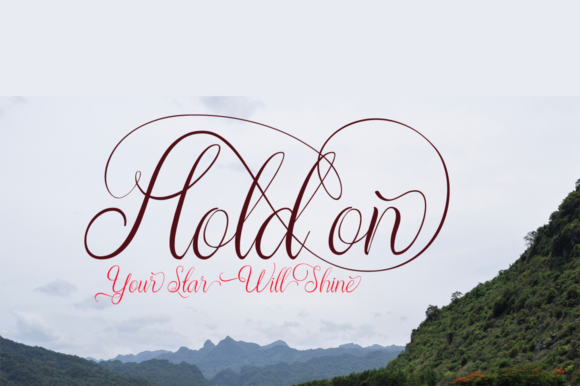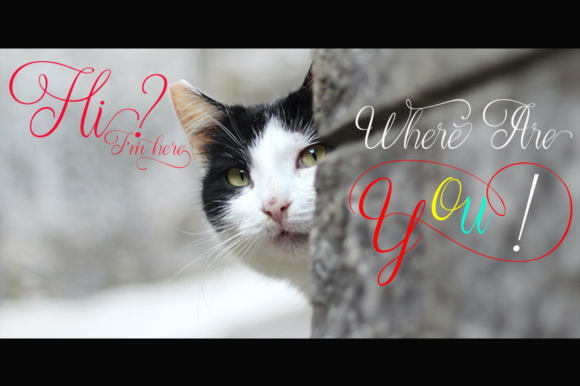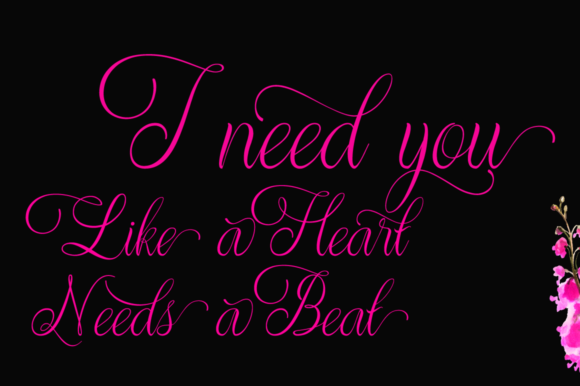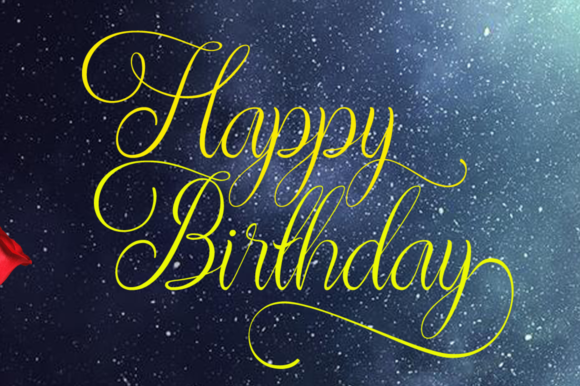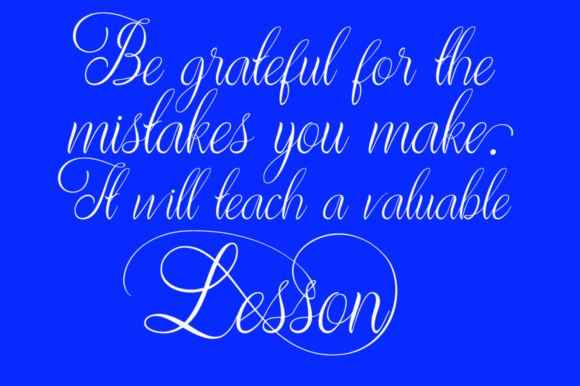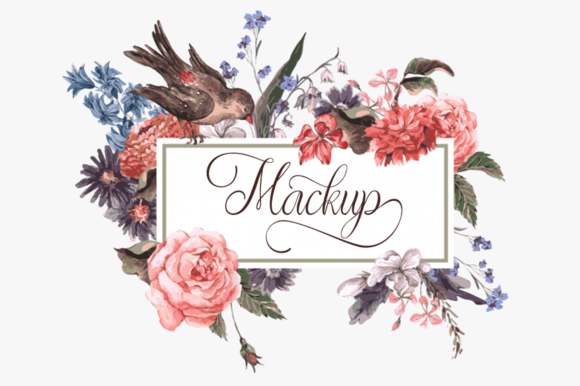
The Elegant Ananda Font: A Designer’s New Best Friend
I’ll never forget the time I was working on a wedding invitation project, and my client asked for a font that was ” elegant, yet playful, and not too overused.” I scoured the internet, tried out dozens of fonts, but nothing seemed quite right. That was until I stumbled upon the Ananda Font. It’s been a game-changer ever since! 💕
An Honest Review of Ananda Font
So, what makes Ananda Font so special? Let’s dive into the good stuff and a few quirks I’ve discovered.
• ✅ Smooth and elegant handwritten style that’s perfect for wedding invitations, thank you cards, and more
• ✅ PUA encoded for easy access to glyphs and sweeps
• ✅ Highly versatile and can be used for logos, business cards, quotes, and greeting cards
• ✅ Easy to read and looks stunning in both digital and print formats
• ⚠️ Some users may find the font a bit too script-like for certain projects
• ⚠️ Not ideal for body text or long paragraphs, as it’s best used for headlines or titles
One of the best things about Ananda Font is its OpenType features and glyphs. With PUA encoding, you can easily access:
• Stylistic alternates for varied letterforms
• Sweeps and flourishes for added decoration
• Glyphs for customizing your design
Experiment with different combinations to create a unique look that suits your project.
The Story Behind Ananda Font
Ananda Font was designed with love and care by a talented type designer. The goal was to create a font that was both elegant and approachable, perfect for a variety of design projects. The name “Ananda” comes from the Sanskrit word for “bliss” or “joy,” which reflects the font’s lighthearted and uplifting feel.
Q: Is Ananda Font suitable for body text?
A: While Ananda Font is beautiful, it’s best used for headlines or titles. For body text, consider a font with better readability.
Q: Is Ananda Font available in different weights or styles?
A: Currently, Ananda Font is available in a single weight. However, the designer may release additional weights or styles in the future.